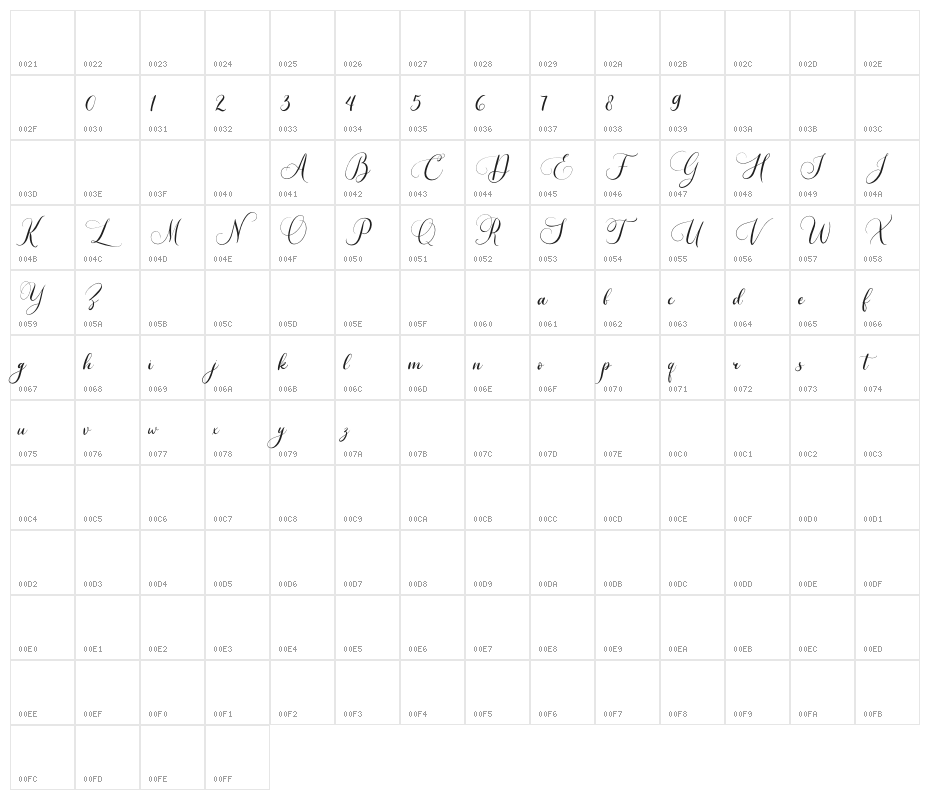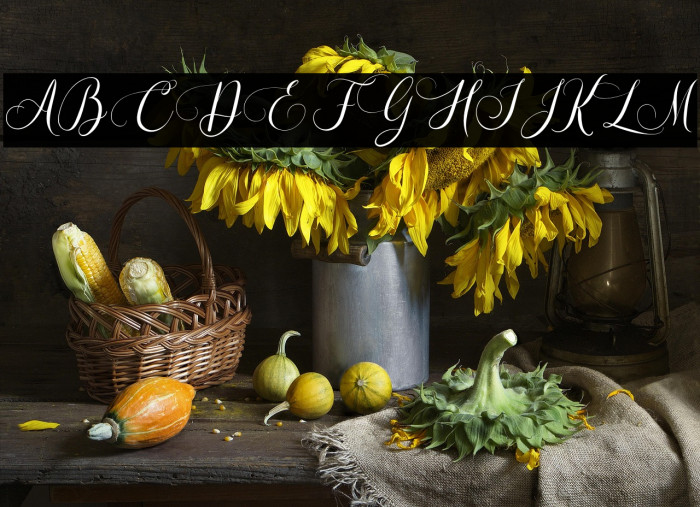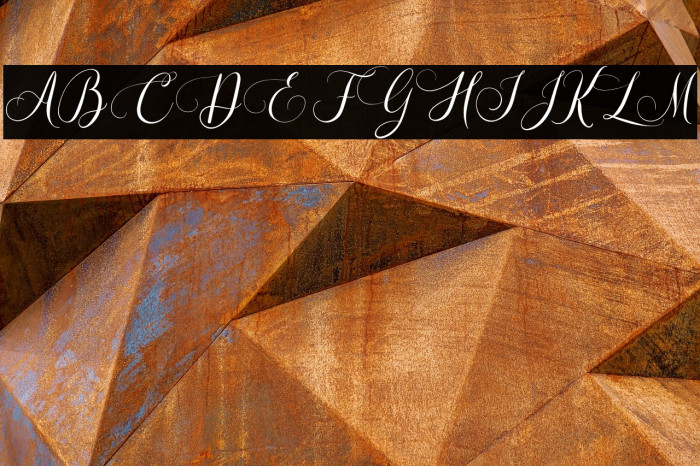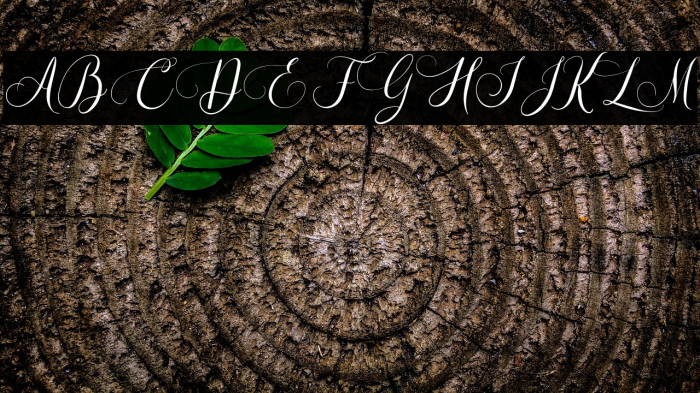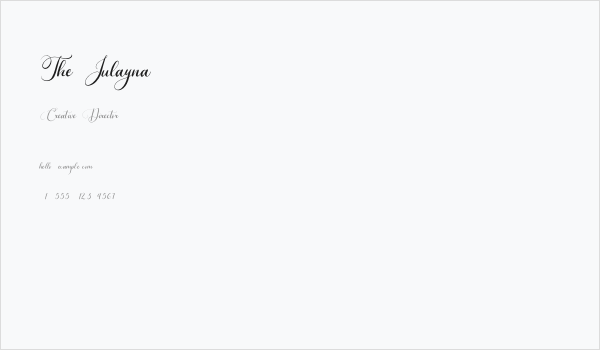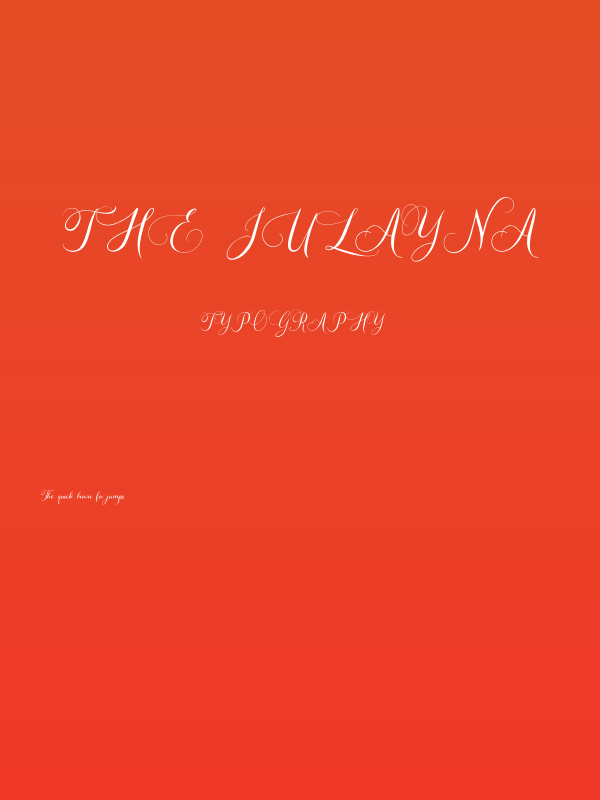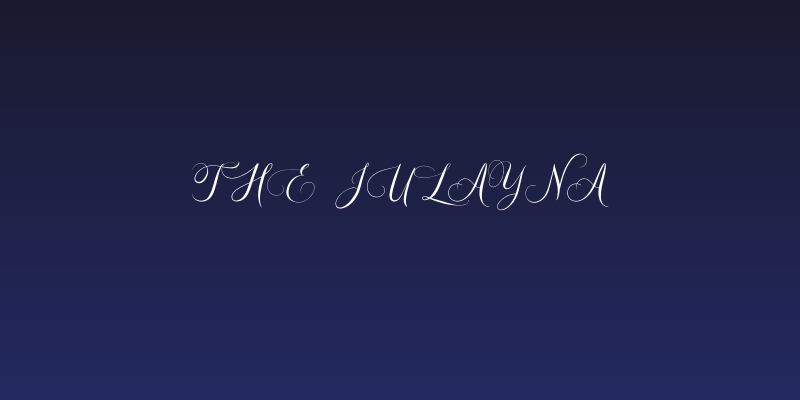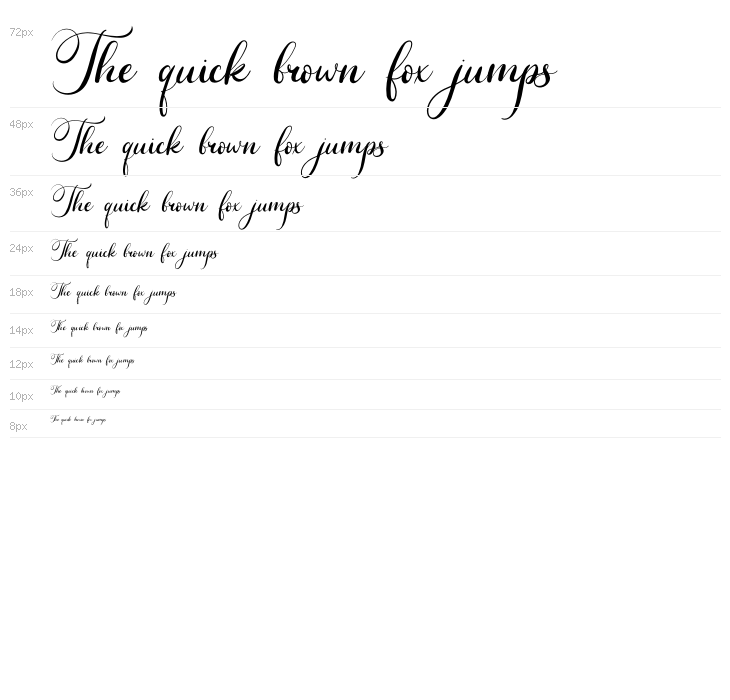
The Julayna Font
The Julayna Description
This elegant script font features flowing, interconnected characters with a classic calligraphic style. The uppercase letters are adorned with intricate swashes and loops, giving them a sophisticated and decorative appearance. The lowercase letters maintain a smooth and fluid connection, enhancing readability while preserving the font's ornate nature. The numerals are consistent with the script's style, featuring gentle curves and a graceful presence. This font is ideal for projects that require a touch of elegance and formality, such as wedding invitations, formal event programs, or high-end branding materials.
| Use Case | Headlines, Invitations, Branding |
| Proposed Projects | Wedding invitations, formal event programs, luxury branding, greeting cards. |